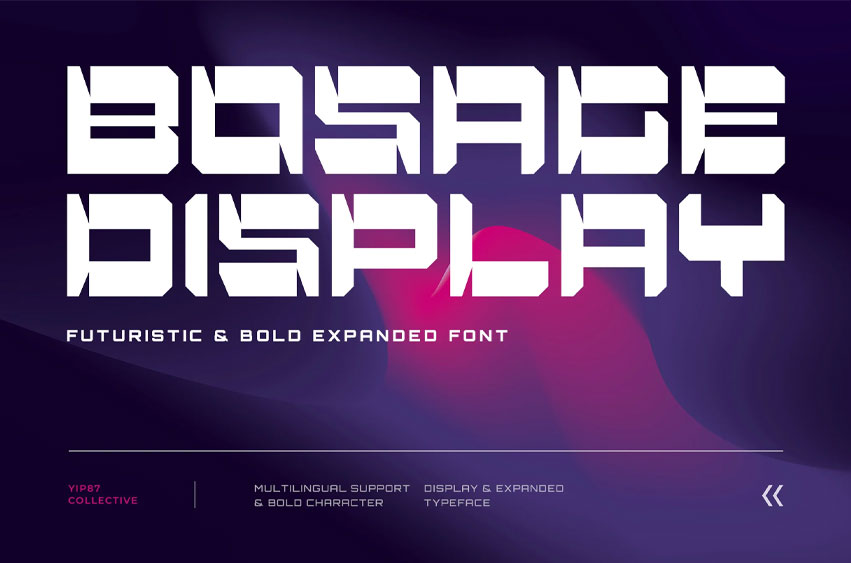
Bosage Display Font is a futuristic tech display font that embodies the essence of modernity and innovation. Bosage is well-suited for Technology branding, App and Software Interfaces, Gaming Graphics, and Product Packaging. You can use the font on product packaging for tech gadgets, electronics, or other futuristic products.
You can also apply Bosage for Digital and Print Advertisements, Event Promotions, Science and Innovation Reports, Web Design, and Book and Magazine Covers. Apply the font to book or magazine covers for topics like science fiction, futuristic concepts, or technology trends.